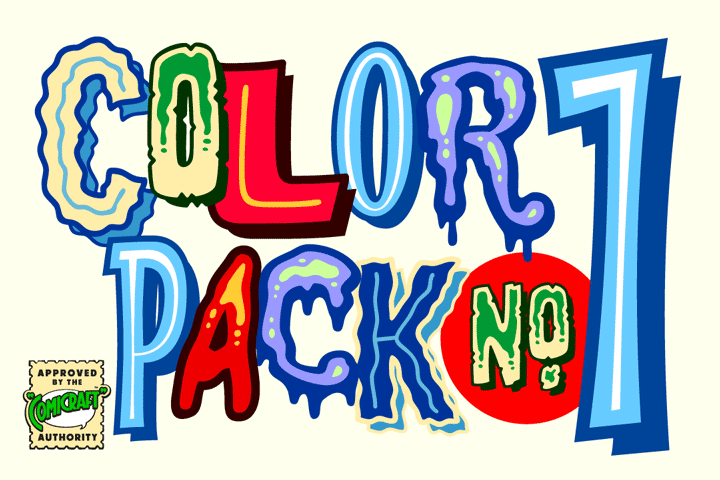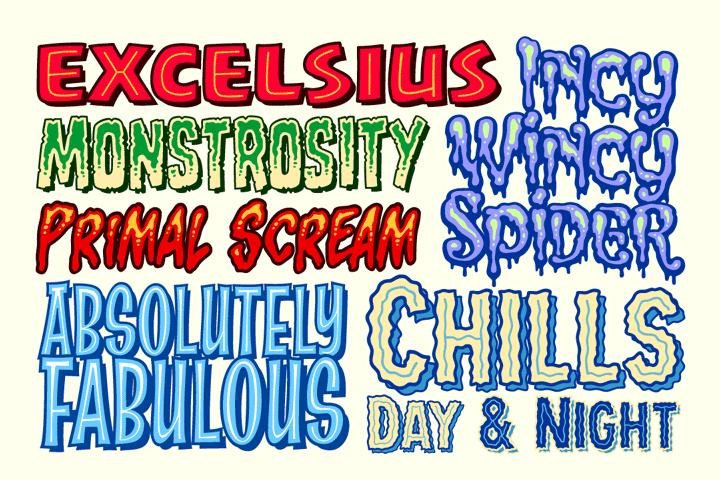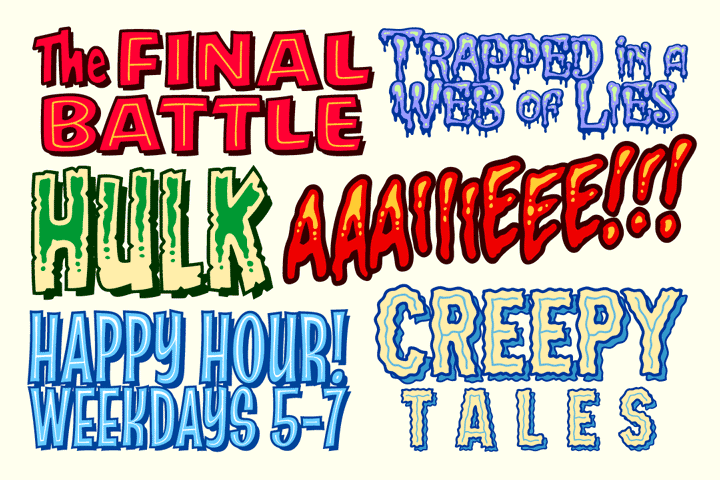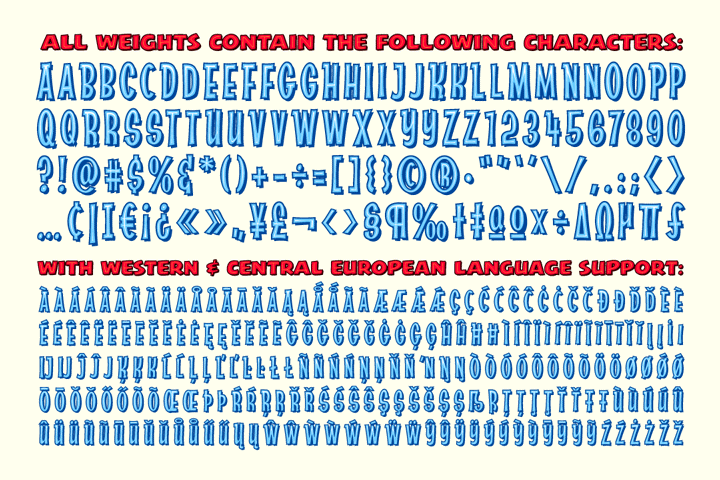
Color Pack 1
Remember the great comic fonts? Now they're all in full color for a dime*! Color fonts are the latest in font amazingness. Load these fonts and start typing in vivid, layered color just like you see above!
Pack 1 includes Absolutely Fabulous Color, Chills Color (Day & Night), Excelsius Color, Incy Wincy Spider Color, Monstrosity Color and Primal Scream Color. Each have full character sets with Opentype features and Western & Central Europe language support.
• Absolutely Fabulous Color, Chills Color (Day & Night), Excelsius Color, Incy Wincy Spider Color, Monstrosity Color and Primal Scream Color.